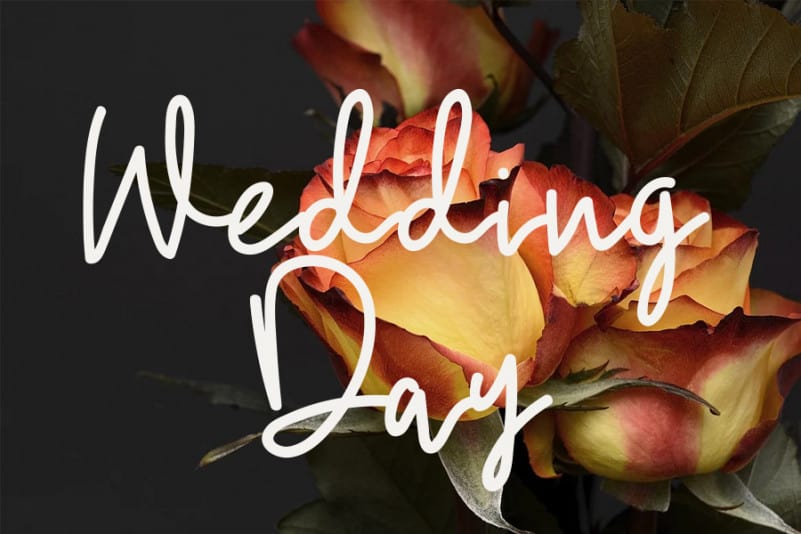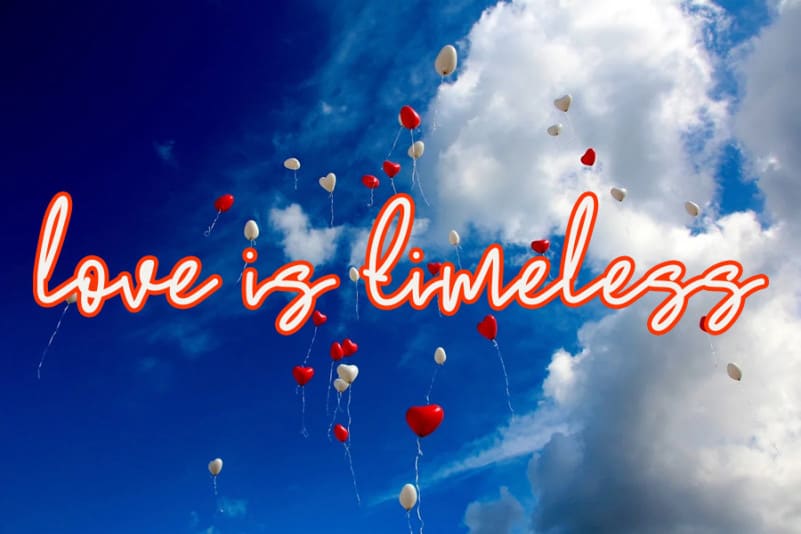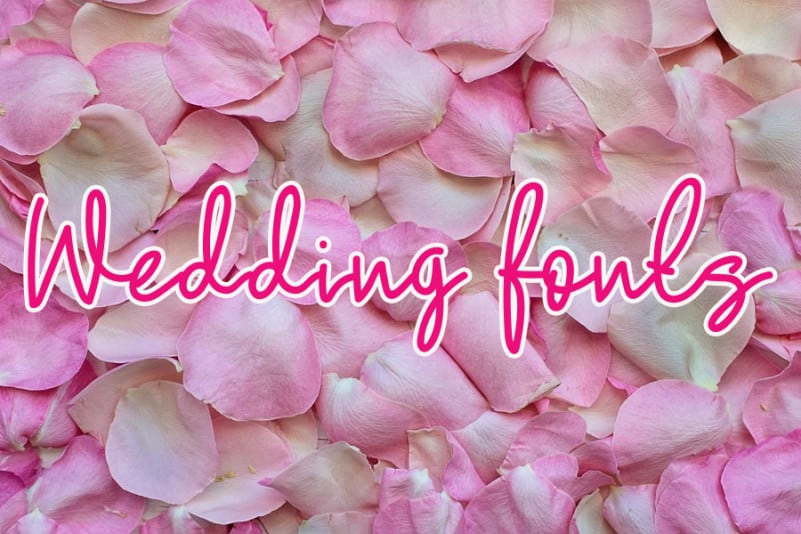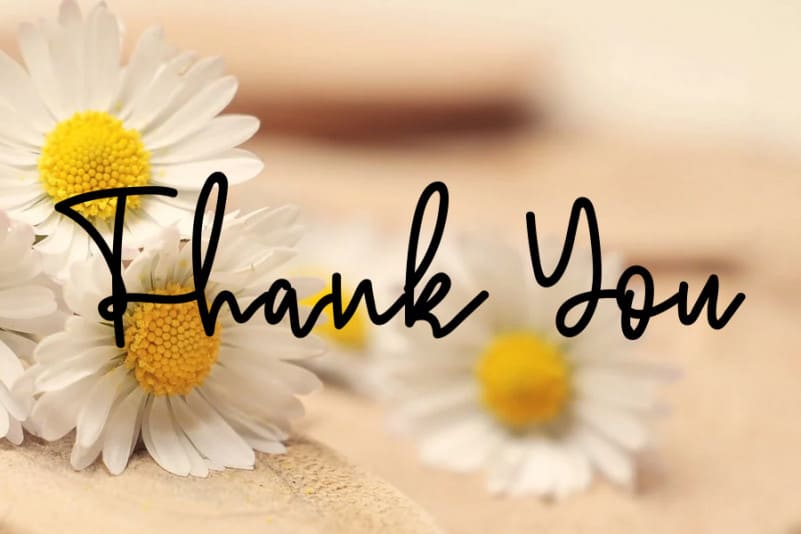
Love Kitchen Handwritten Font
Love Kitchen Handwritten Font is a cute and charming handwritten font. Whimsical and a bit quirky, this font will brighten up each of your designs. Add it confidently to your projects, and you will love the results.
Love Kitchen Handwritten Font is a very talented product for you to use,
Latest letters that can be used for various products, invitations, wall hangings, weddings, and more.